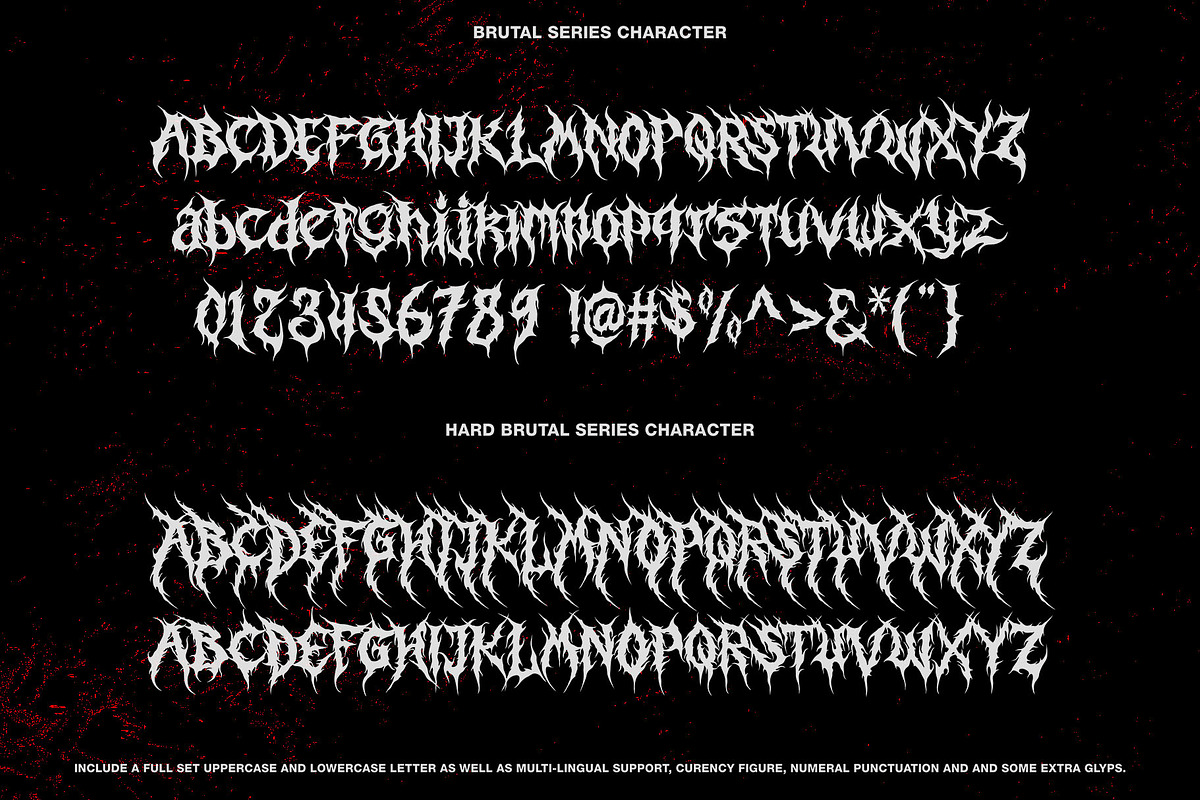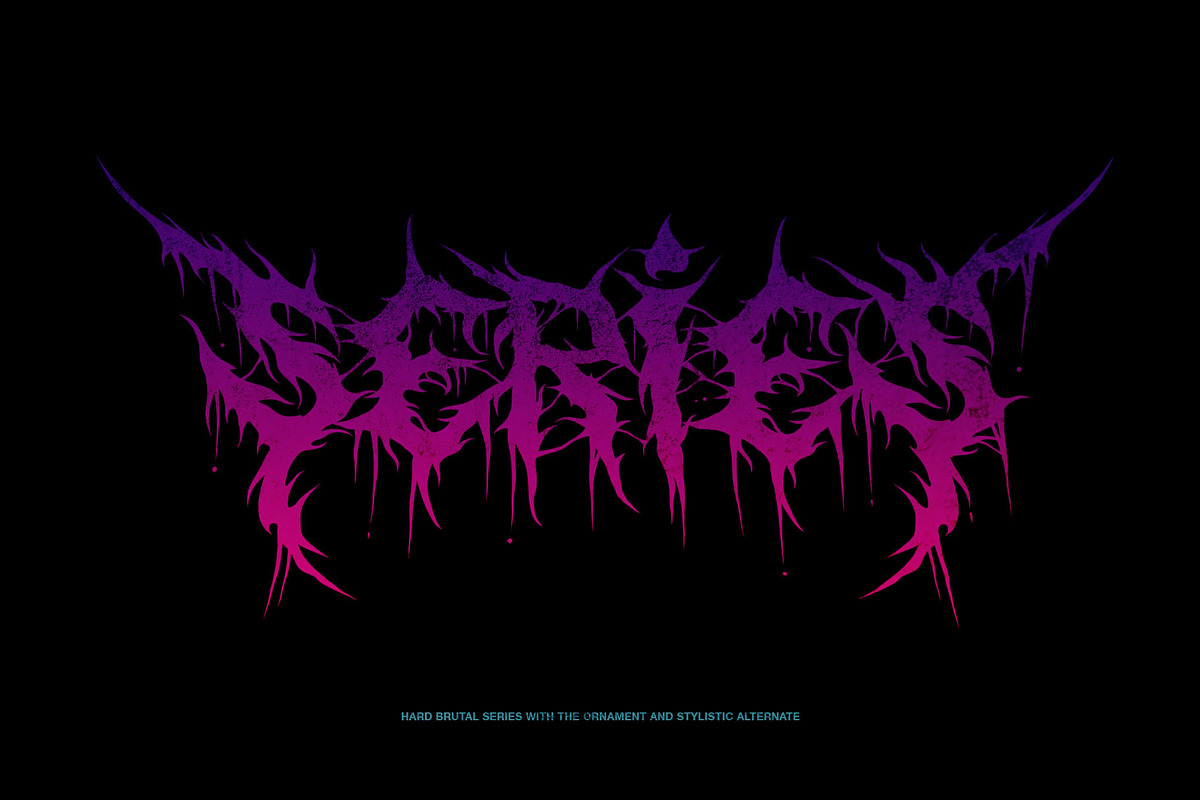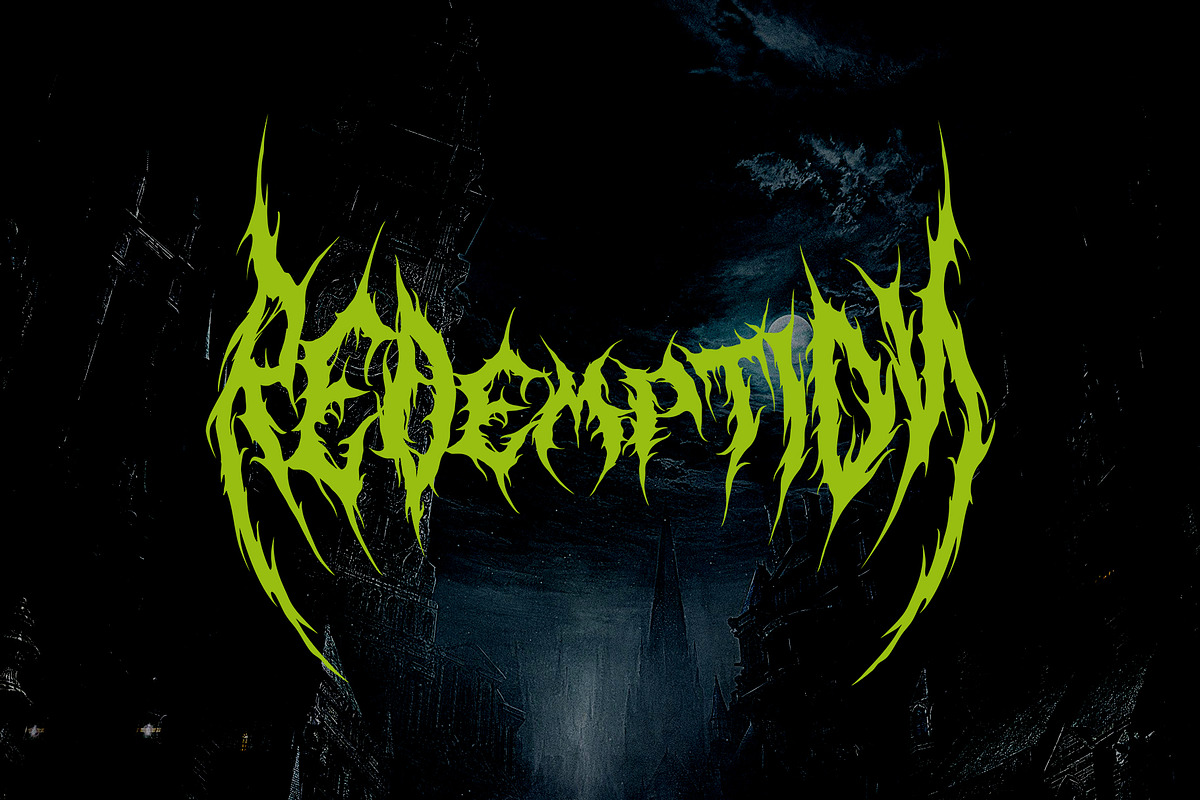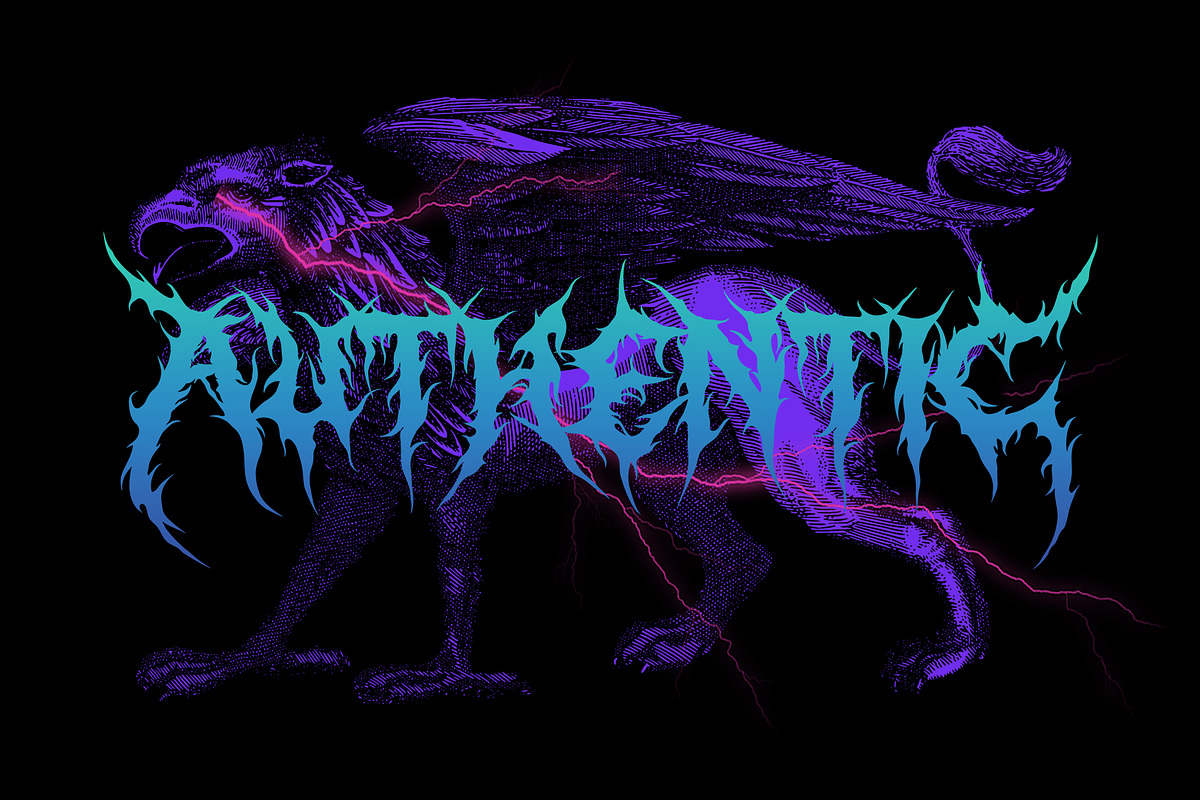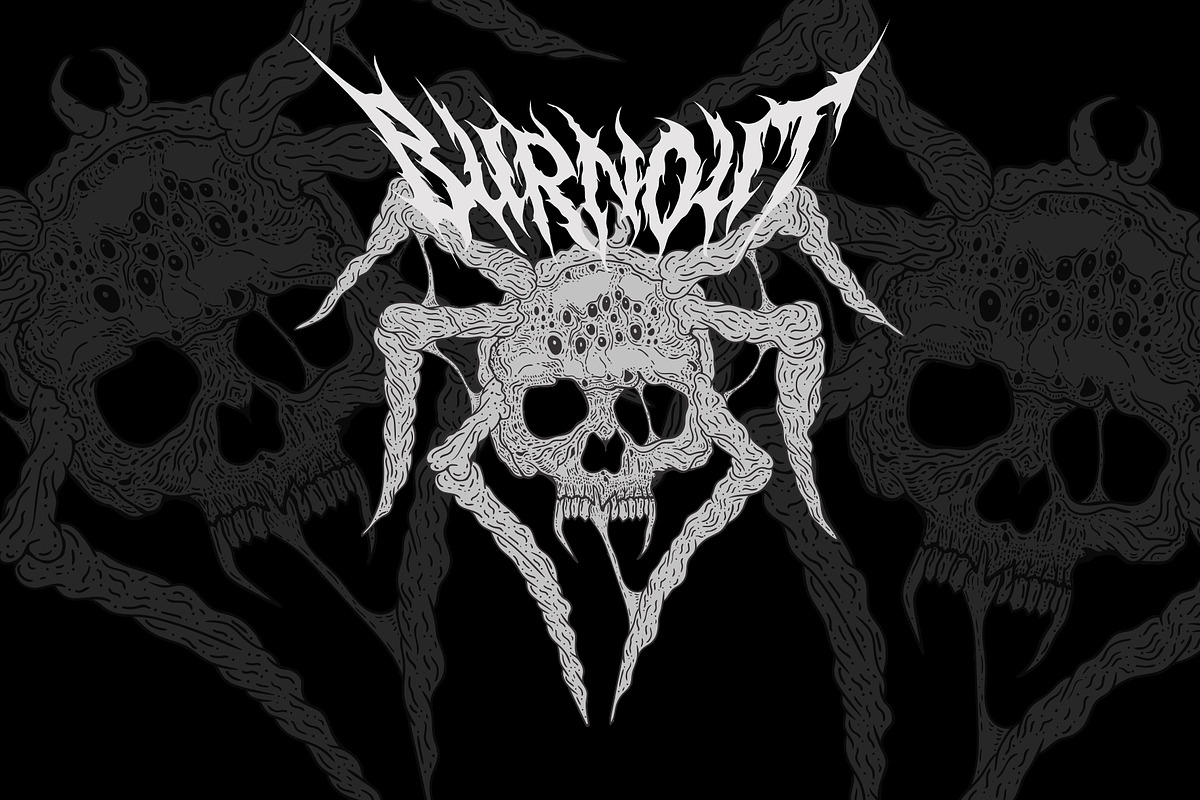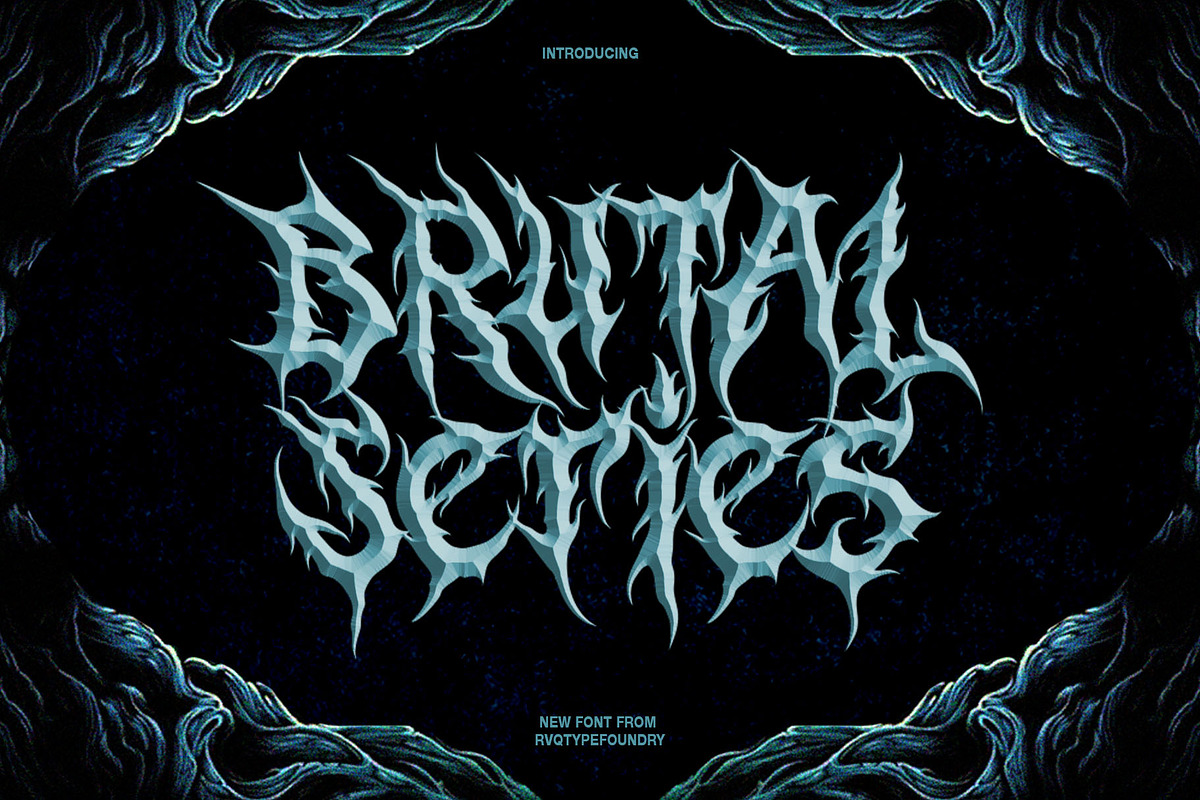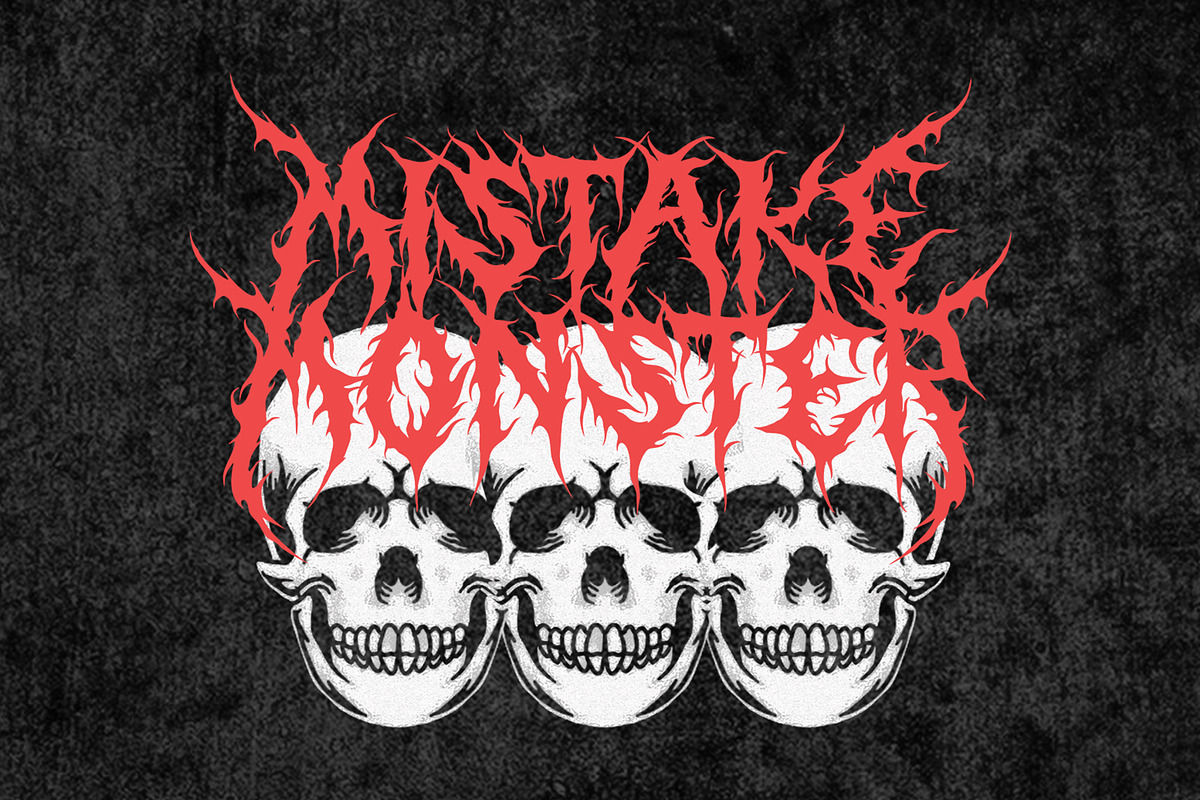
Brutal Series is the new font deathmetal and black metal from Rvq typefoundry ,was created as a dual-purpose font To create the beautiful combination, just mix your words with the alternative glyphs and Ornament. Perfect for : for Band, Music, clothing, Branding, Logos, Greeting Cards, Stationery Design, Invitations, T-shirts, Apparel, Packaging designs, Posters, Typographic Design, and so much more..
- Brutal Series
- Hard Brutal Series
- Ornament brutal series
- Character Set A-Z
- Special Characters (ornament)